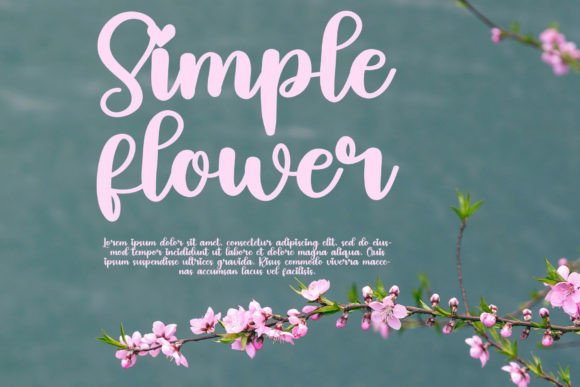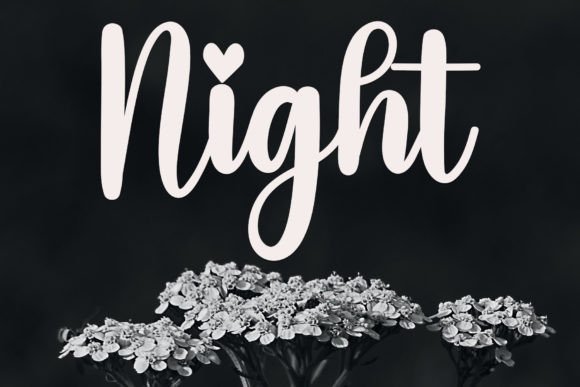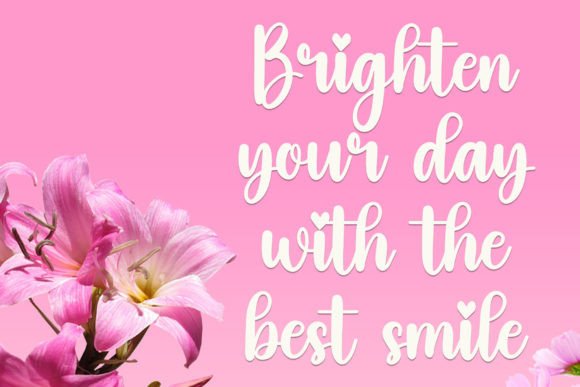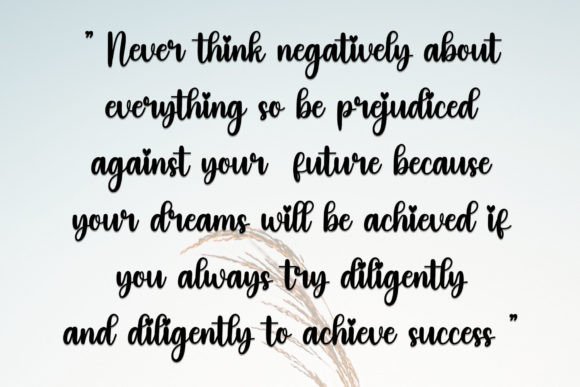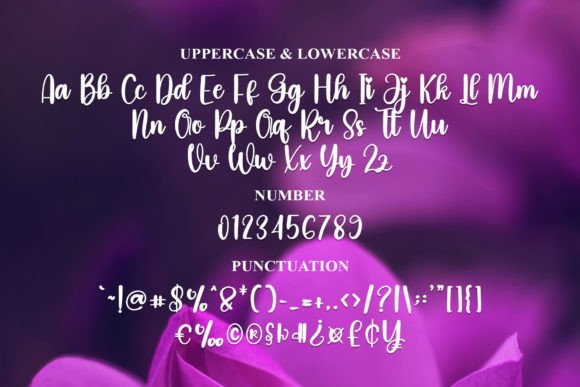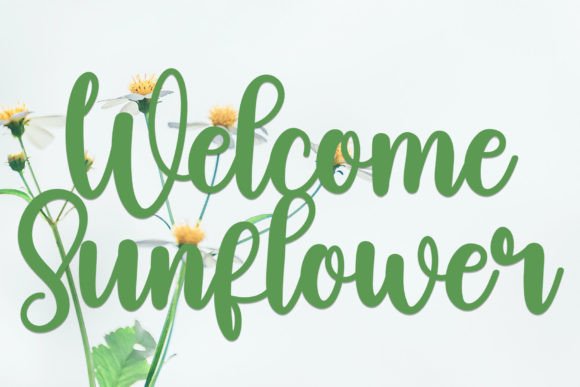
Introducing Birthday Font: The Ultimate Handwritten Script for Enchanting Designs
Are you looking for a font that can add a touch of magic to your designs? Look no further than Birthday Font, a beautiful handwritten script that is sure to captivate your audience. This versatile font is perfect for a wide range of applications, from greeting cards to headlines, and is guaranteed to bring a romantic feel to your next project.
The Charm of Birthday Font
Birthday Font is a carefully crafted handwritten script that exudes elegance and sophistication. Its enchanting letterforms are designed to evoke a sense of wonder and joy, making it the perfect choice for designs that require a personal touch. Whether you’re creating a birthday card, a wedding invitation, or a social media post, this font is sure to add a touch of whimsy and charm.
One of the best things about Birthday Font is its versatility. This script font can be used for a wide range of applications, including:
- Greeting cards: Create beautiful birthday cards, wedding invitations, and holiday greetings with a personal touch.
- Headlines: Add a touch of elegance to your headlines and titles with this stunning script font.
- Social media posts: Make your social media posts stand out with this beautiful handwritten font.
- Branding: Use Birthday Font to create a unique and memorable brand identity.
- Packaging: Add a touch of whimsy to your product packaging with this enchanting font.
Why Choose Birthday Font?
So why choose Birthday Font over other script fonts? Here are just a few reasons:
- Unique and elegant letterforms: Birthday Font features unique and elegant letterforms that are sure to captivate your audience.
- Easy to read: Despite its elegant and cursive nature, Birthday Font is easy to read and understand.
- Highly versatile: This font can be used for a wide range of applications, from greeting cards to headlines.
- Romantic feel: Birthday Font is guaranteed to add a romantic feel to your designs, making it perfect for wedding invitations, birthday cards, and other special occasions.
Tips for Using Birthday Font
Here are a few tips for using Birthday Font in your designs:
- Use it sparingly: While Birthday Font is beautiful, it can be overwhelming if used too much. Use it sparingly to add a touch of elegance to your designs.
- Pair it with a sans-serif font: Pair Birthday Font with a sans-serif font to create a beautiful contrast and add visual interest to your designs.
- Experiment with colors: Birthday Font looks beautiful in a variety of colors, so don’t be afraid to experiment and find the perfect hue for your design.
In conclusion, Birthday Font is a beautiful handwritten script that is sure to add a touch of magic to your designs. Its versatility, elegance, and romantic feel make it the perfect choice for a wide range of applications, from greeting cards to headlines. Whether you’re a designer, crafter, or DIY enthusiast, Birthday Font is a must-have font that is sure to inspire and delight.